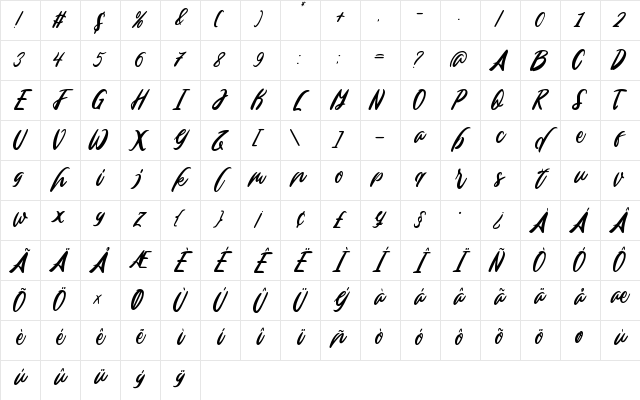
Complete Edinburg Regular glyph index. Displaying only characters natively supported by Edinburg Regular font.
Edinburg is a composed and adaptable typeface that performs quietly and consistently across a wide range of design contexts.